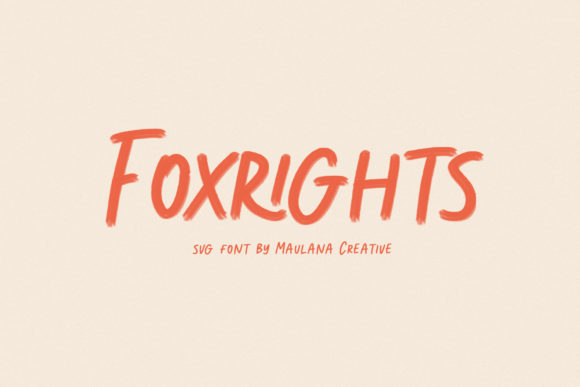
Unleash your creativity with Foxrights Font - the ultimate script font designed to turn your words into dazzling neon art. Crafted by Maulana Creative, this captivating font boasts a unique brushed handwritten style that adds a personal touch to your designs, making them stand out from the crowd.
With Foxrights Font, you'll have the power to transform ordinary text into extraordinary displays of light. Picture your designs glowing with the vibrant energy of neon signs, capturing attention and leaving a lasting impression on your audience. From social media posts to posters and flyers, Foxrights Font is the perfect choice for adding a touch of urban flair and youthful exuberance to your projects.
Indulge in the versatility of Foxrights Font and explore its endless possibilities. Its charming handwritten style complements a wide range of design aesthetics, from retro and vintage to modern and contemporary. Whether you're a graphic designer, a social media enthusiast, or simply someone who loves to add a personal touch to their digital creations, Foxrights Font is the perfect tool to elevate your work.